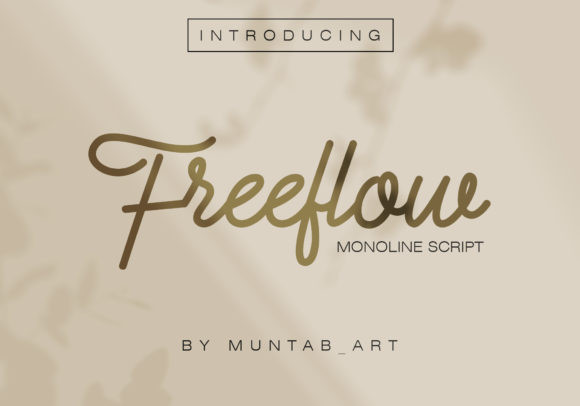
Freeflow Font
The reason Freeflow Font is genuinely exciting is its perfect, continuous flow and consistent monoline weight. This design choice gives the script a refined, elegant look that is both effortless and highly legible, making it instantly adaptable to both large display headlines and smaller logo details. It successfully captures the organic movement of hand-lettering while maintaining the precise cleanliness of vector graphics, making it an ideal choice for modern luxury and fashion-forward brands.
The Freeflow Font family typically concentrates its power in a single, distinct weight (Monoline Script Regular) which defines its signature look. However, it often includes essential OpenType features like stylistic sets, standard ligatures, and multilingual support. This focus on fluid connectivity and stylistic control is where the font’s versatility truly shines. For a smooth, modern, and elegantly flowing typeface, secure your Freeflow Font Free Download today.